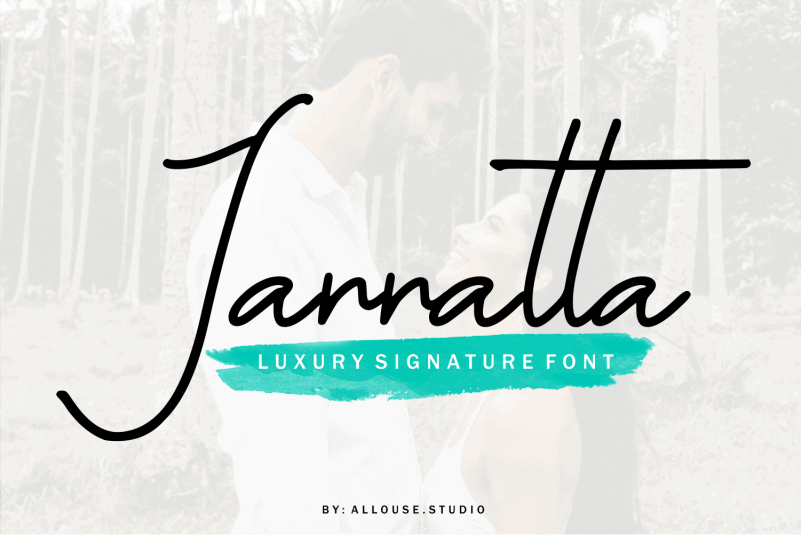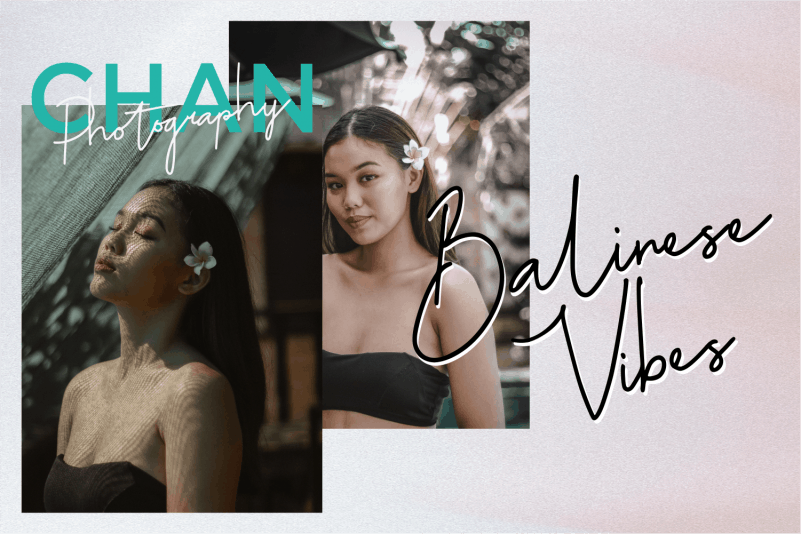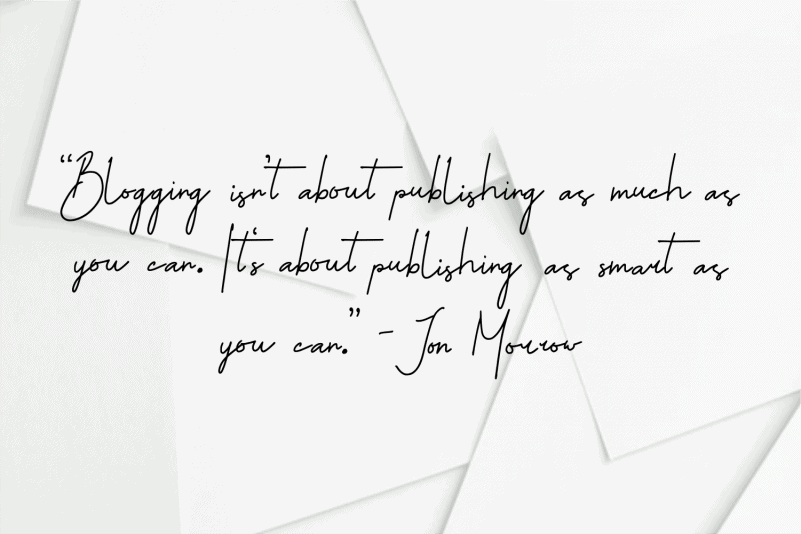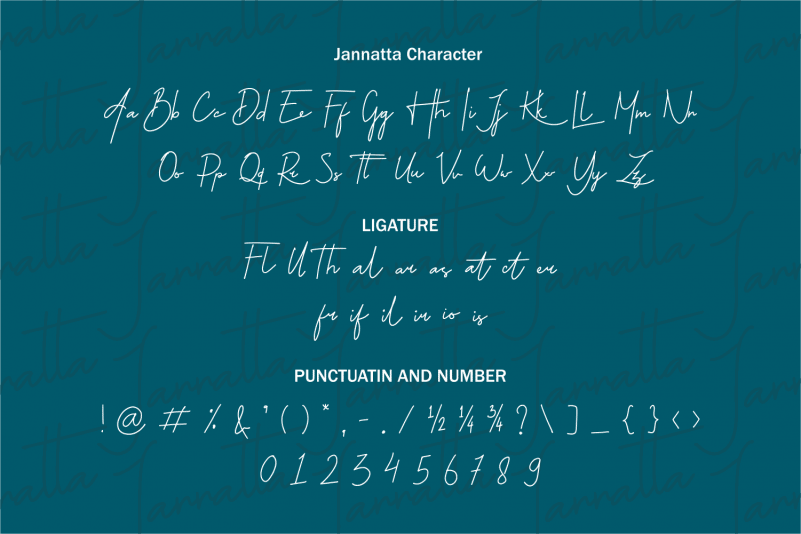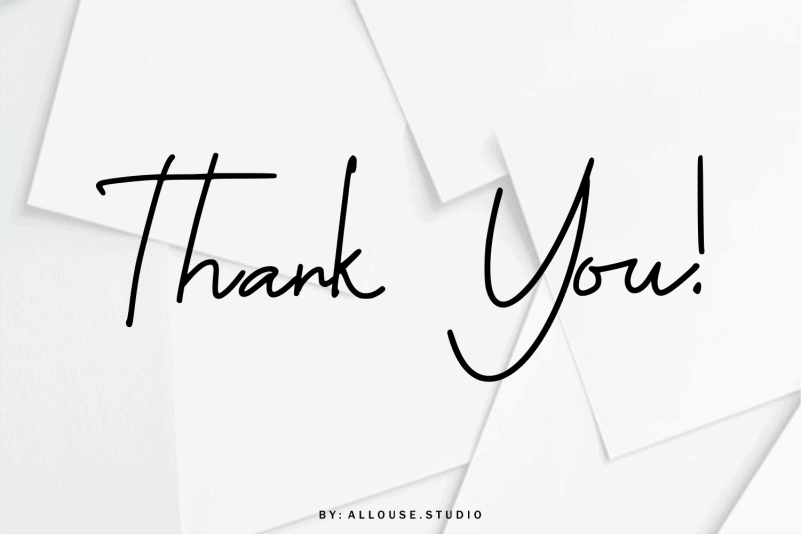
Jannatta Handwritten Font
Jannatta Handwritten Font come with Ligatures and Multi-Lingual Support to fulfill your need. We highly recommend using a program that supports OpenType features and Glyphs panels like many of Adobe apps and Corel Draw, so you can see and access all Glyph variations.
Jannatta is perfect for any tittle, product packaging, branding project, megazine, social media, wedding, or just used to express words above the background.